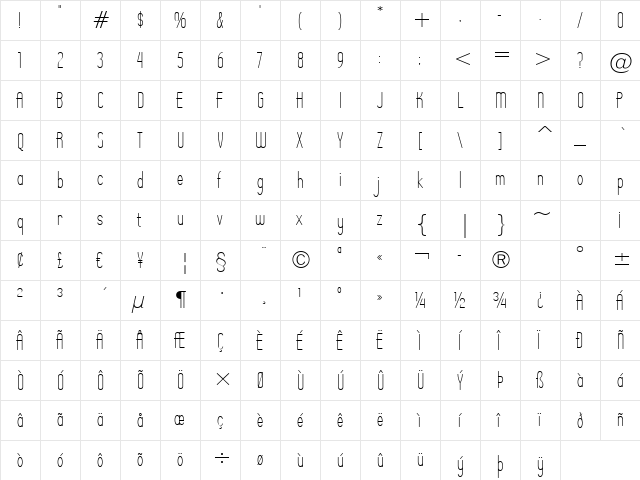
Operator Nine BTN Lt Regular
Design Context for Operator Nine BTN Lt Typeface
Operator Nine BTN Lt is a composed and adaptable typeface that performs quietly and consistently across a wide range of design contexts. Its slender proportions lend an understated elegance to any composition.